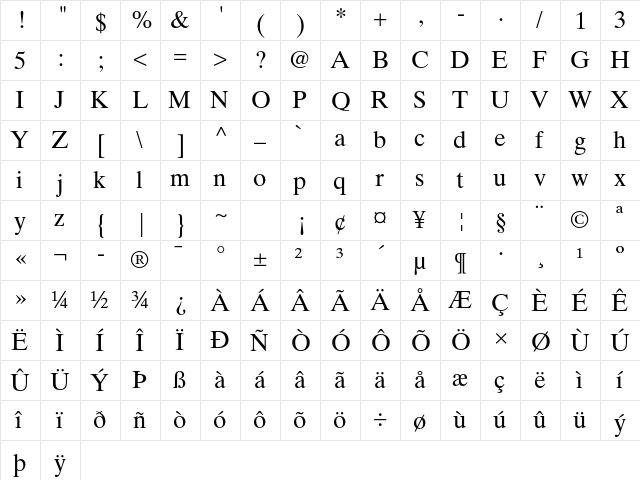
Times Ten LT Std Roman
| Designer | Linotype Staff |
Design Context for Times Ten LT Std Typeface
Times Ten LT Std offers clean, dependable letterforms without strong stylistic allegiance, making it a practical choice for designers who need flexibility. Its slender proportions lend an understated elegance to any composition.